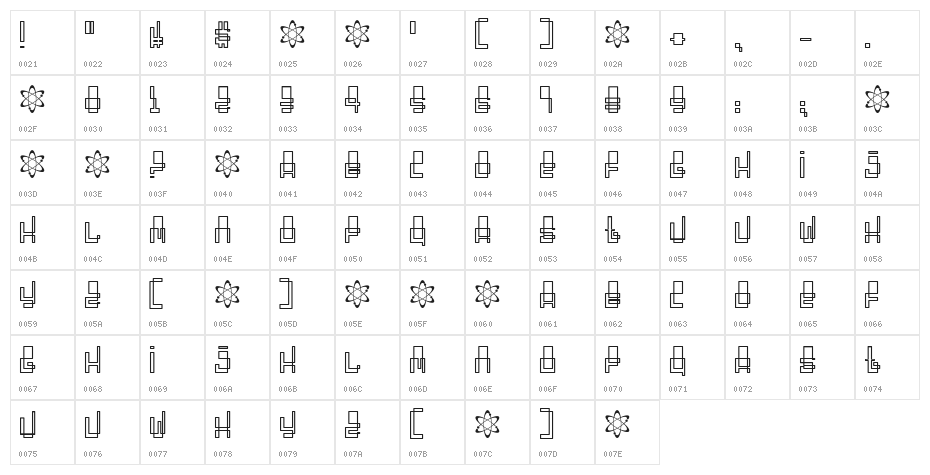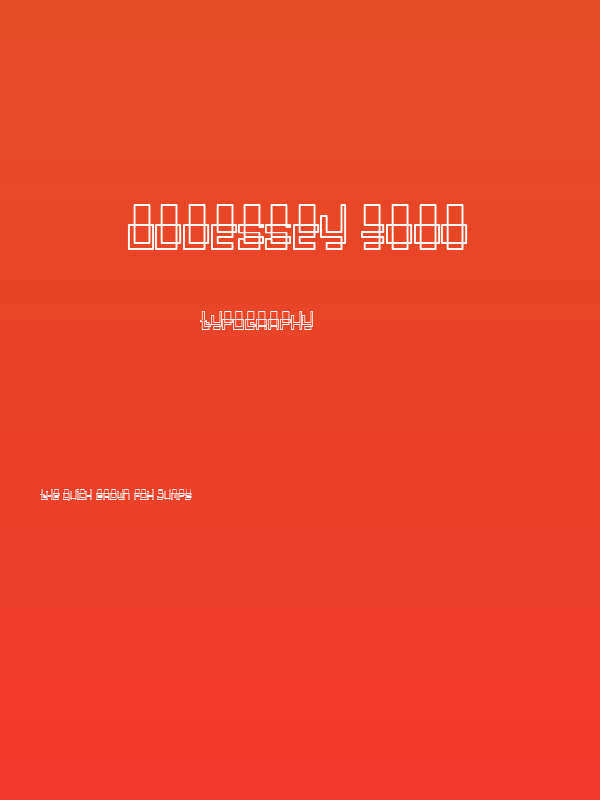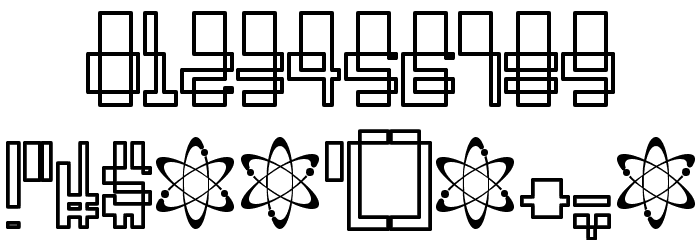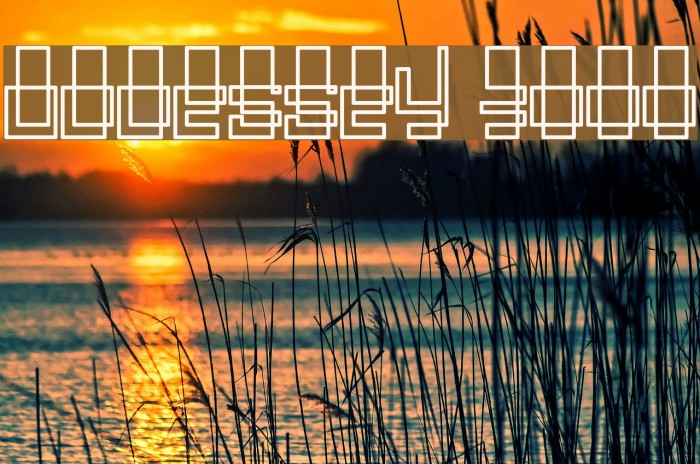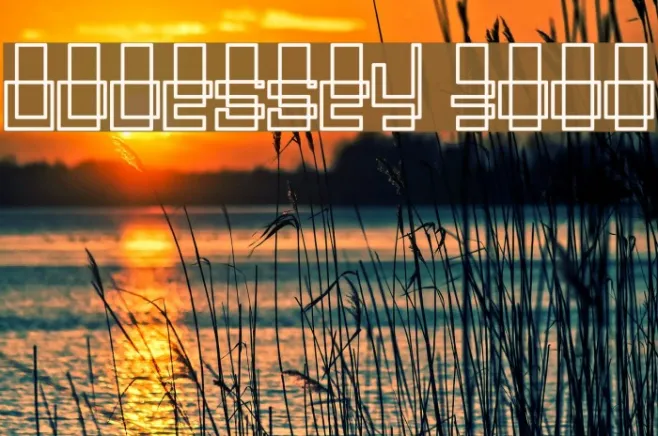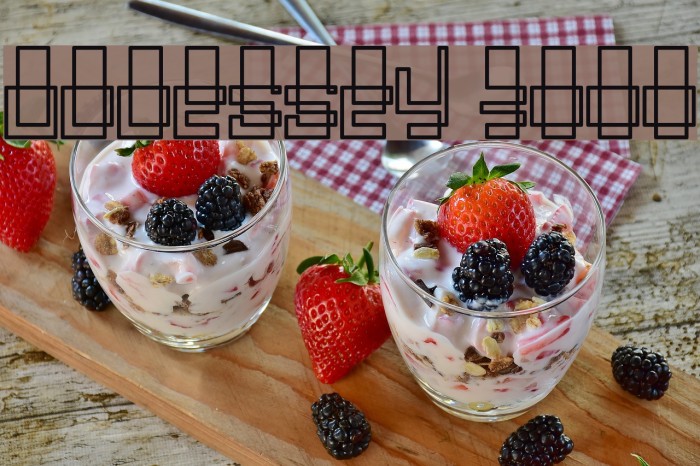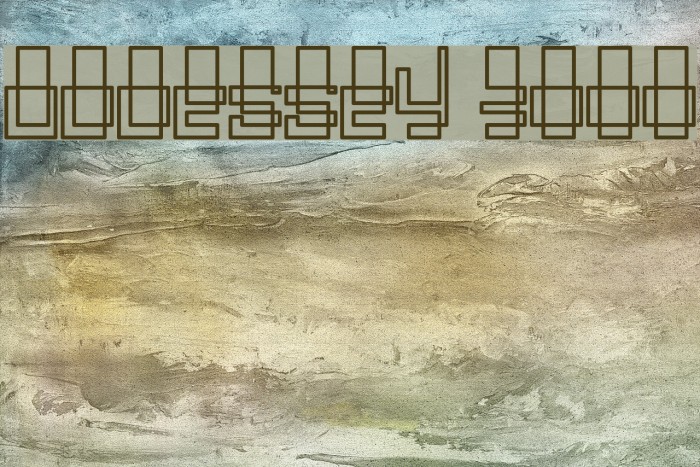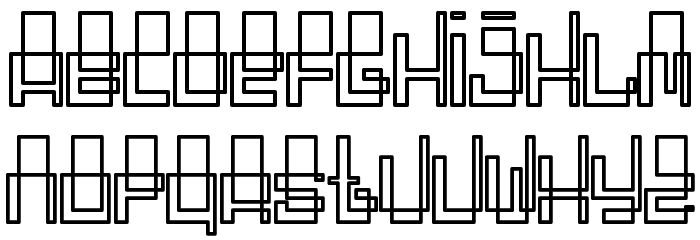
Oddessey 3000 Font
Oddessey 3000 Description
This font features a futuristic, geometric design with a distinctly digital aesthetic. Each character is constructed from a series of straight lines and right angles, giving it a blocky, pixelated appearance reminiscent of early computer graphics. The uppercase and lowercase letters share a similar structure, maintaining a consistent height and width that enhances the uniformity of the typeface. Numbers and special characters follow the same design principles, ensuring a cohesive look across all glyphs. The font's unique style is both modern and retro, making it ideal for projects that require a tech-savvy or sci-fi theme.
| Proposed Projects | Ideal for tech-themed designs, sci-fi book covers, video game interfaces, and digital art projects. |